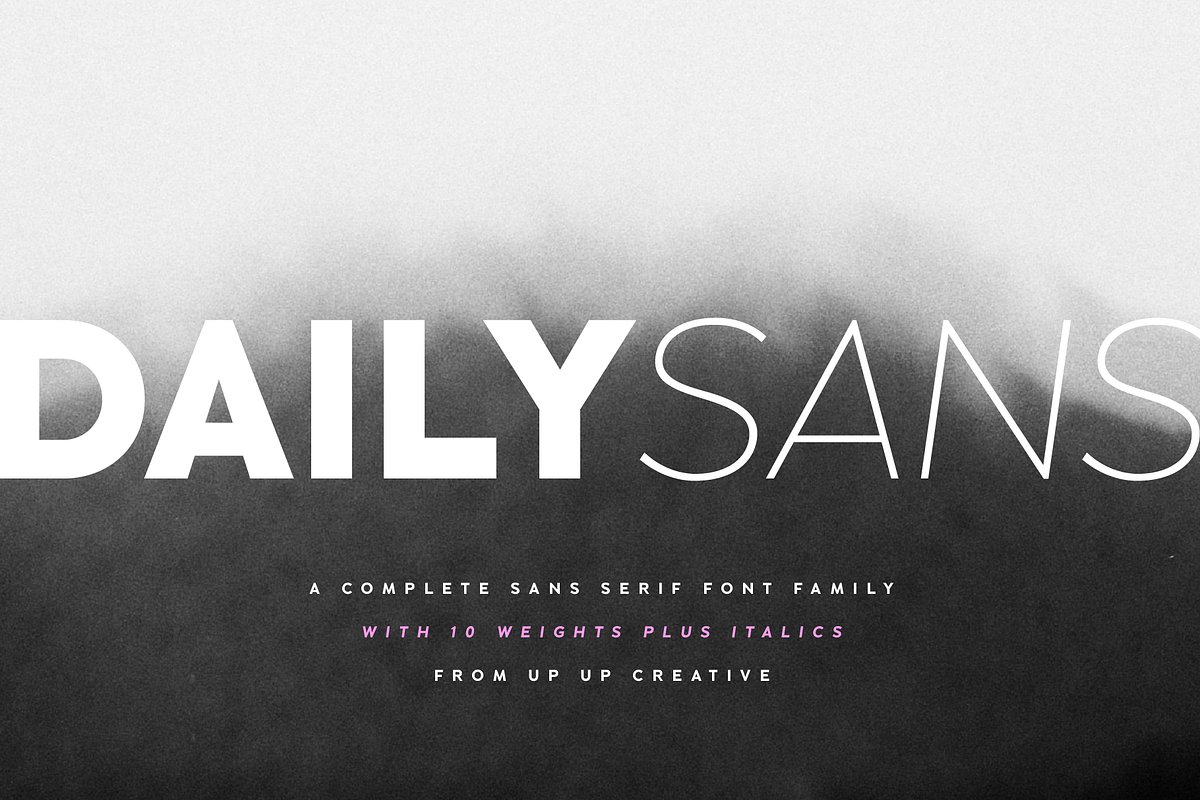
Daily Sans Complete - 20 Fonts Free Download is a comprehensive font family that offers a diverse range of styles and weights, making it perfect for various design needs. With 20 different fonts, this collection provides everything from light to bold options, ensuring versatility for logos, branding, editorial layouts, websites, and more.
Daily Sans Complete - 20 Fonts Free Download offers a modern, clean, and professional aesthetic, making it ideal for both display and body text. Whether you're designing a modern brand identity, a sleek user interface, or creating promotional materials, this font family provides flexibility and clarity in your typography. Download it today and elevate your designs with the complete range of Daily Sans!